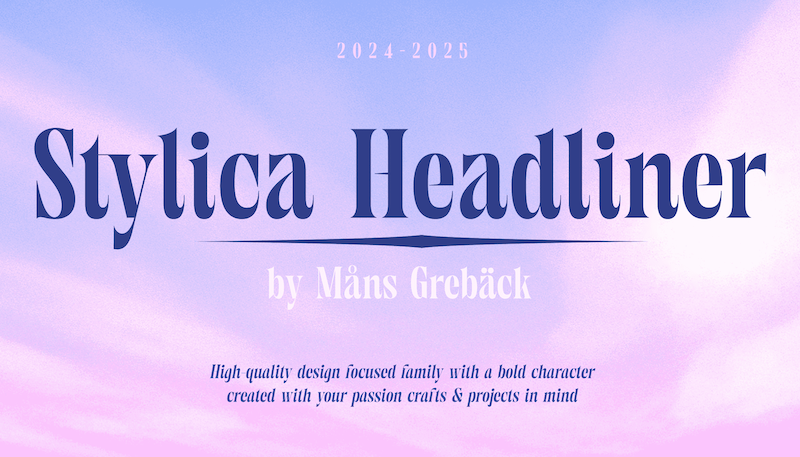
Preview and download Stylica Headliner Font. Created by Måns Grebäck in Basic Serif styles with Free for personal use license.
NOTE: This font is for PERSONAL USE ONLY! To purchase a commercial license, visit: http://mn.sg/stylica-headliner Stylica Headliner is a bold serif font designed to make a strong impact. Its heavy weight and sharp edges give it a confident presence with a modern take on classic serif elements. For questions, please visit www.mn.sg/faq |